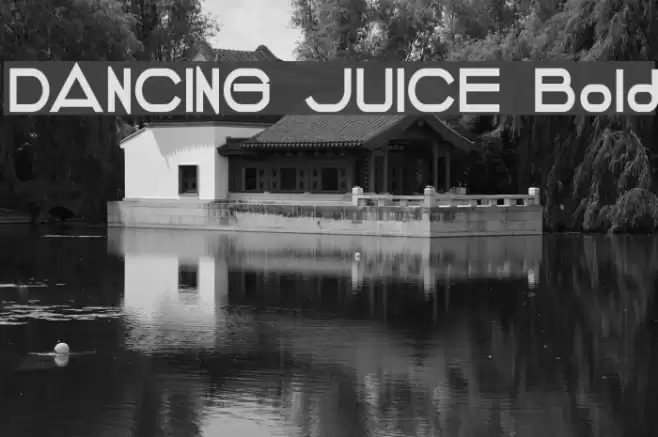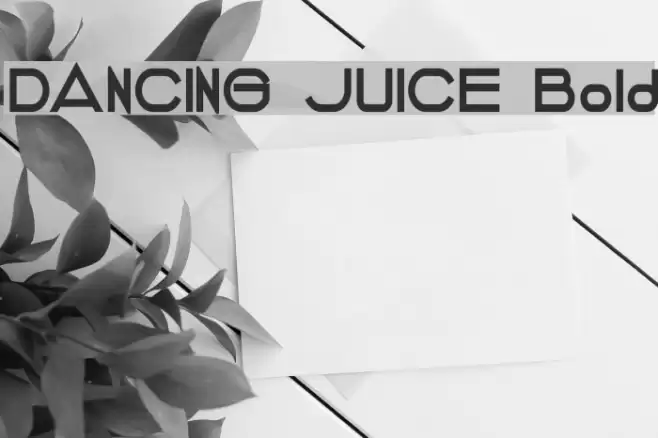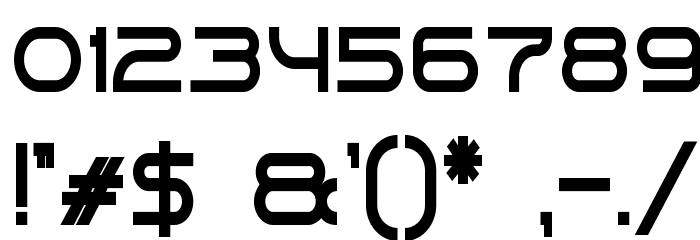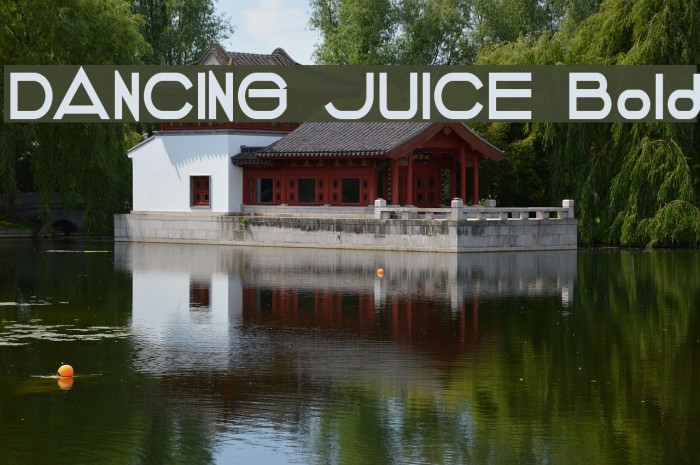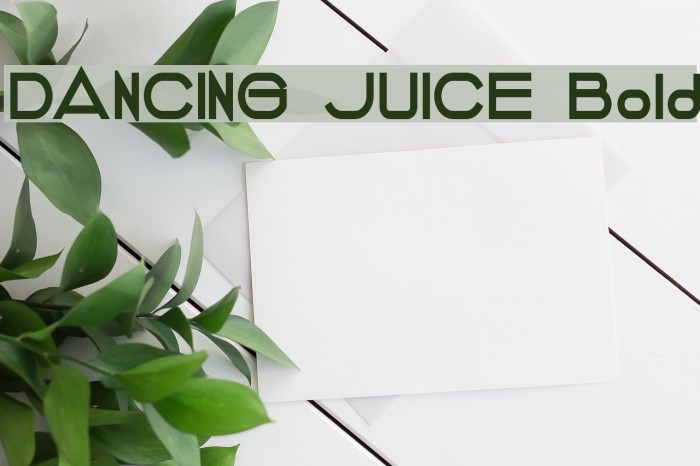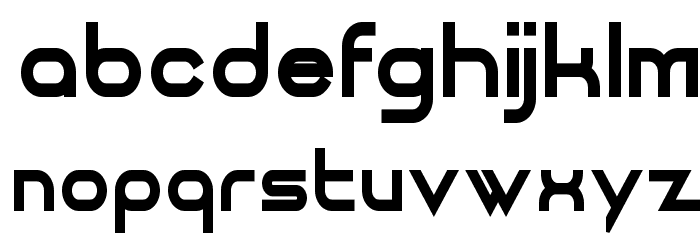
DANCING JUICE Bold Font
DANCING JUICE Bold Description
This font features a bold, geometric style with a modern and futuristic aesthetic. The characters are constructed with clean, straight lines and sharp angles, giving it a distinct and edgy appearance. The uppercase letters are particularly striking, with unique shapes that make them stand out. The lowercase letters maintain the same geometric theme, providing consistency across the typeface. The numerals are equally bold and follow the same design principles, ensuring readability and visual impact. Special characters are included, designed to complement the overall style of the font.
A bold, geometric font with a modern, futuristic style from Uncategorized fonts.
- Proposed Projects: Ideal for tech branding, futuristic designs, posters, and digital media.